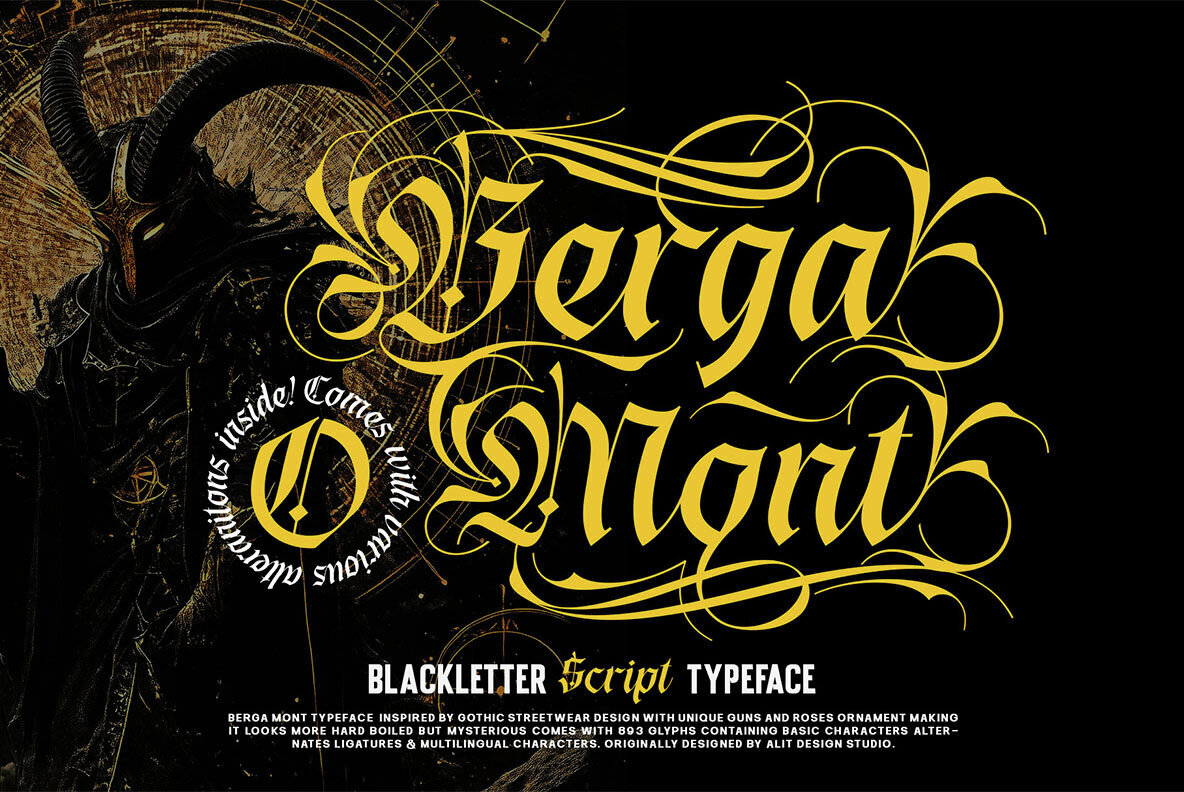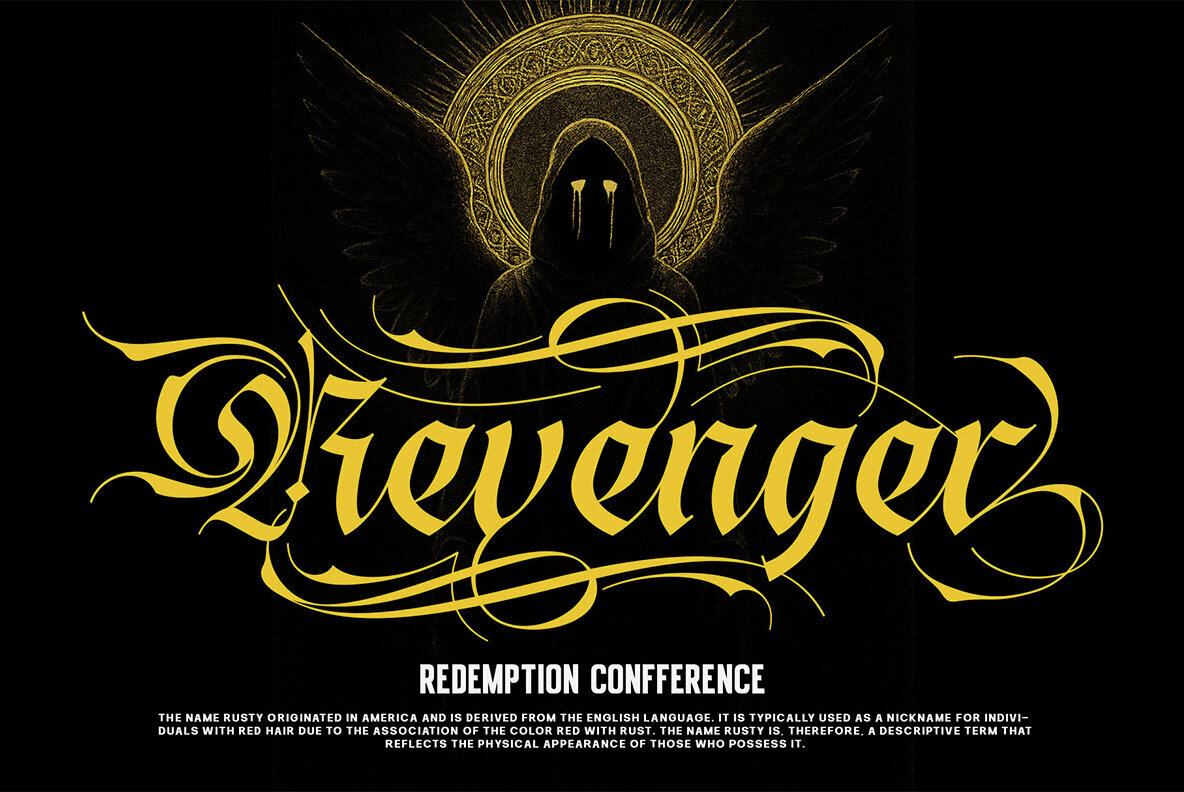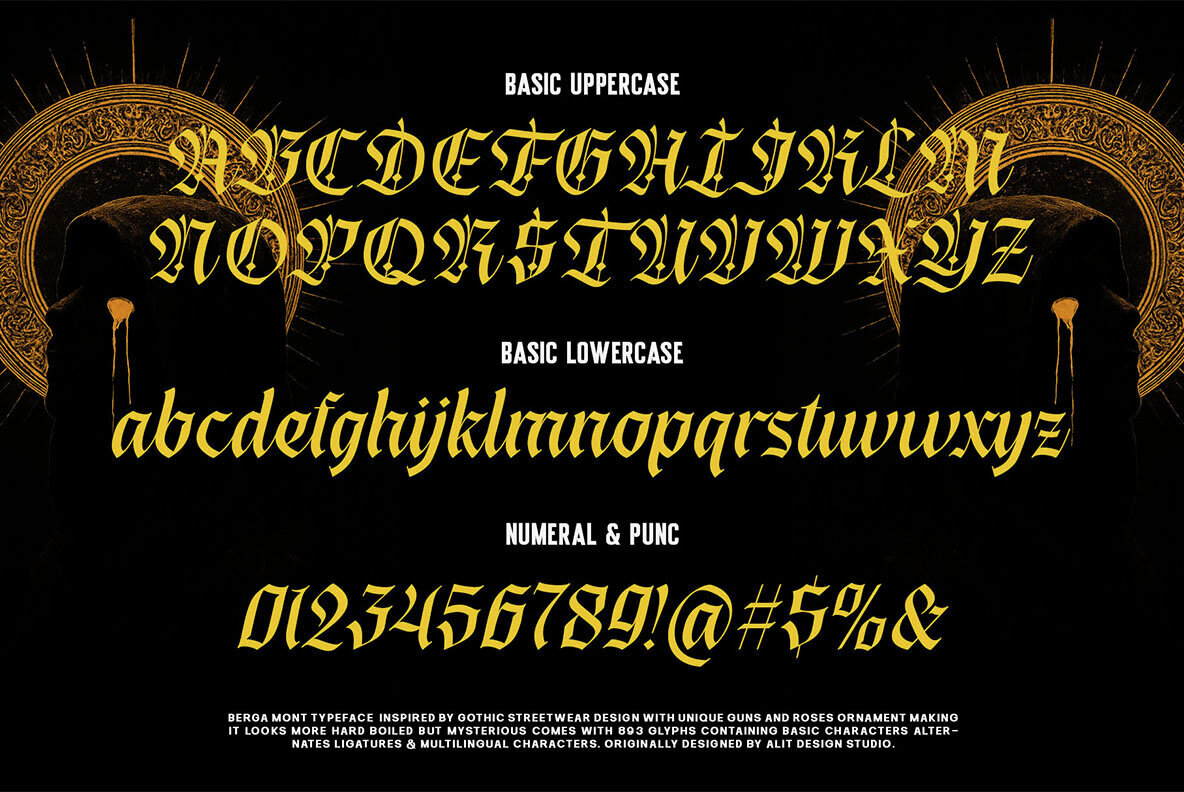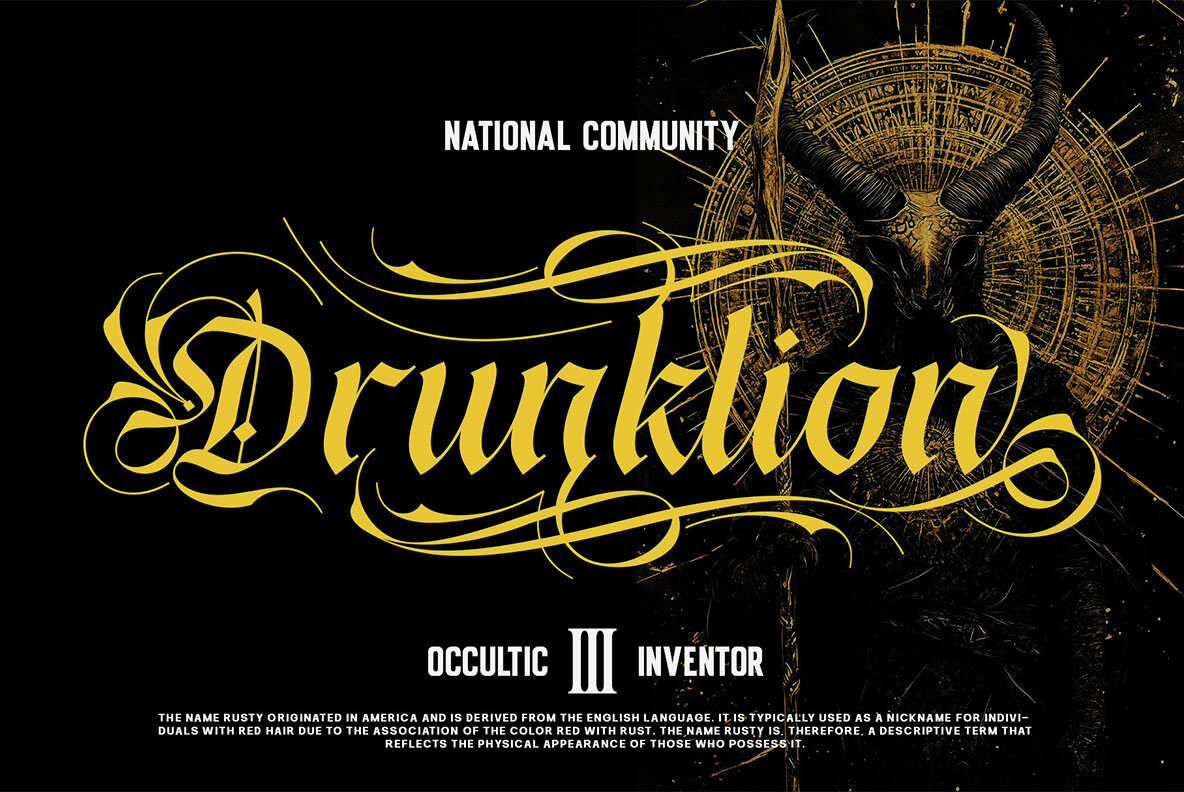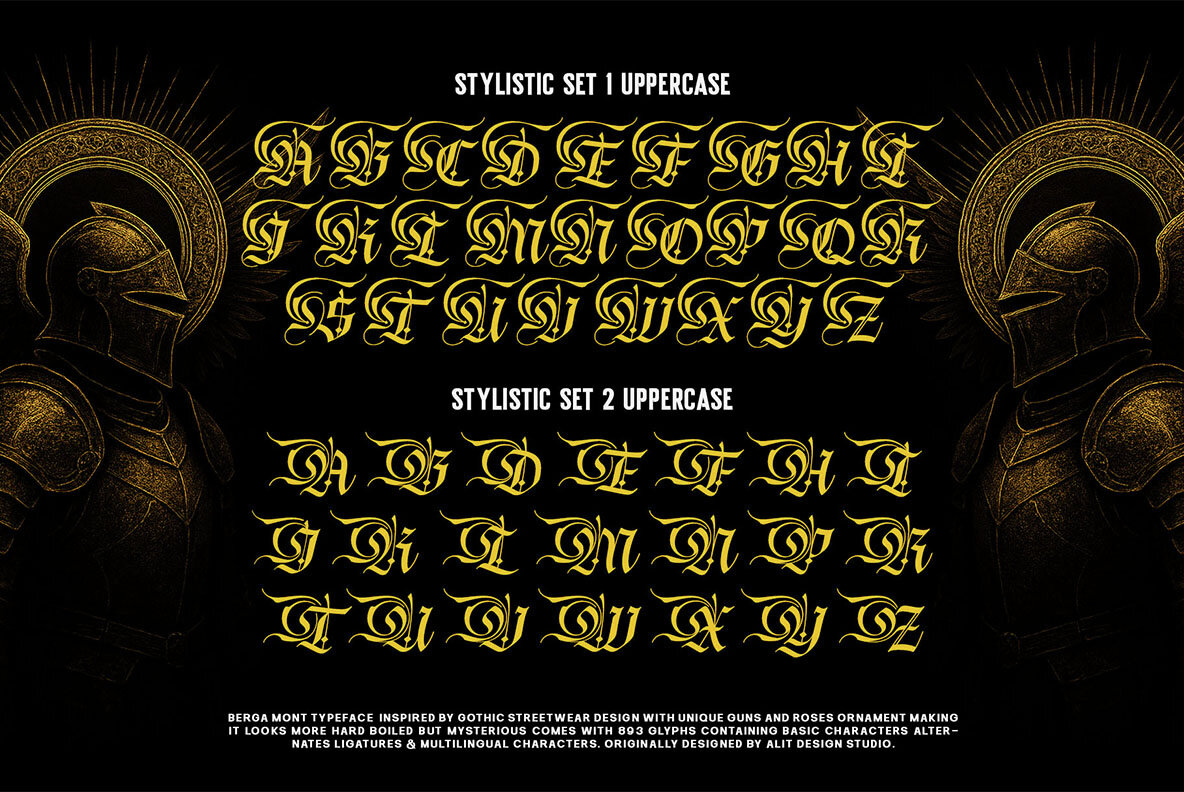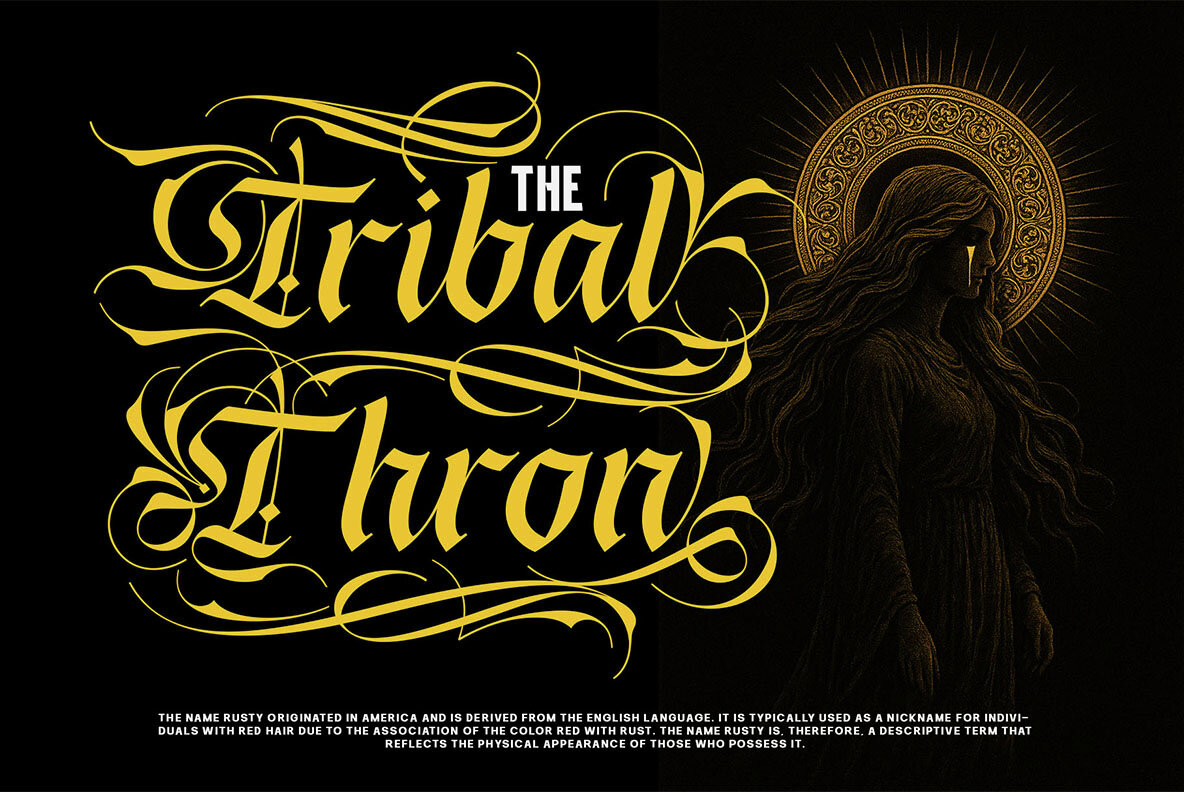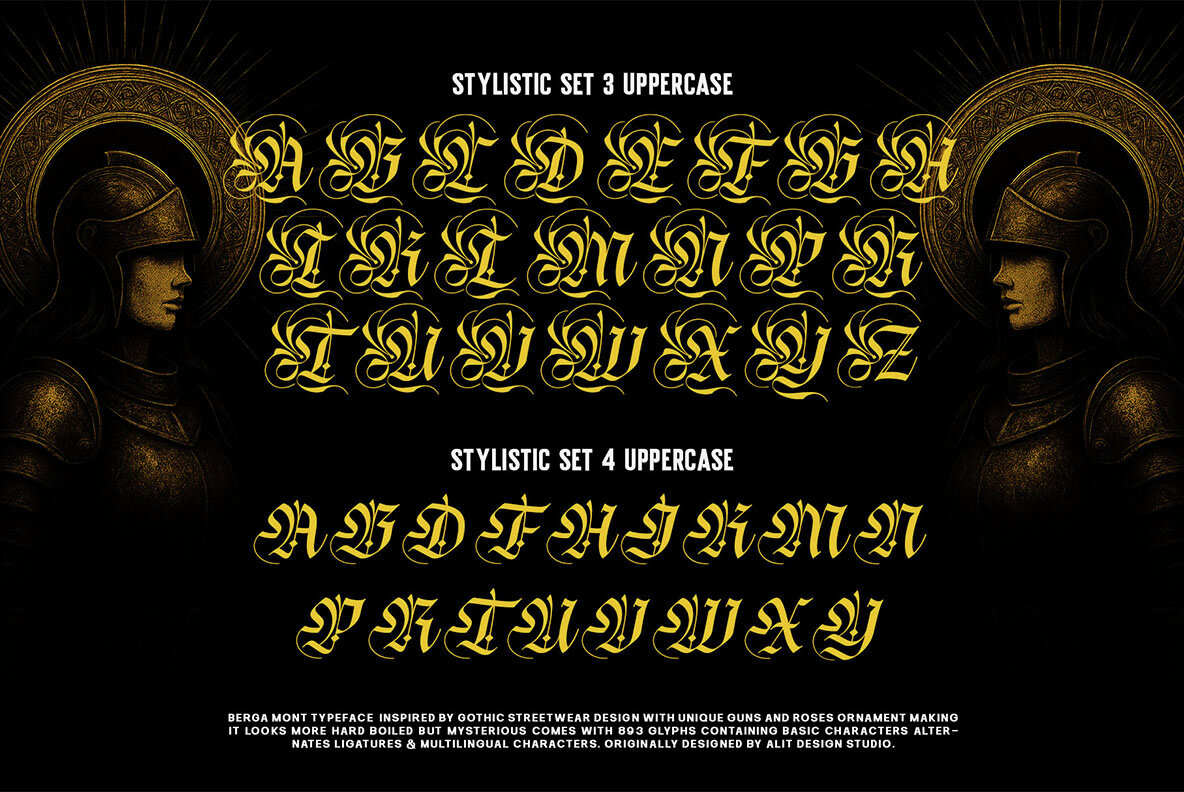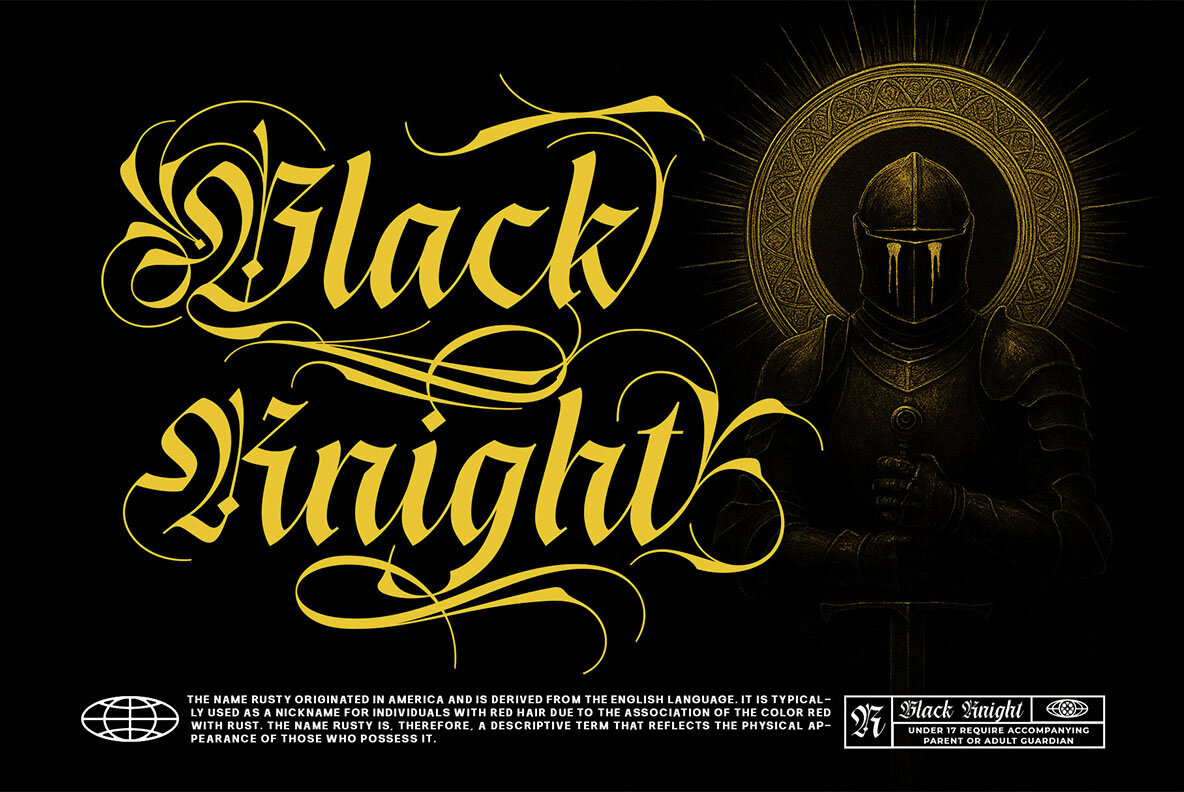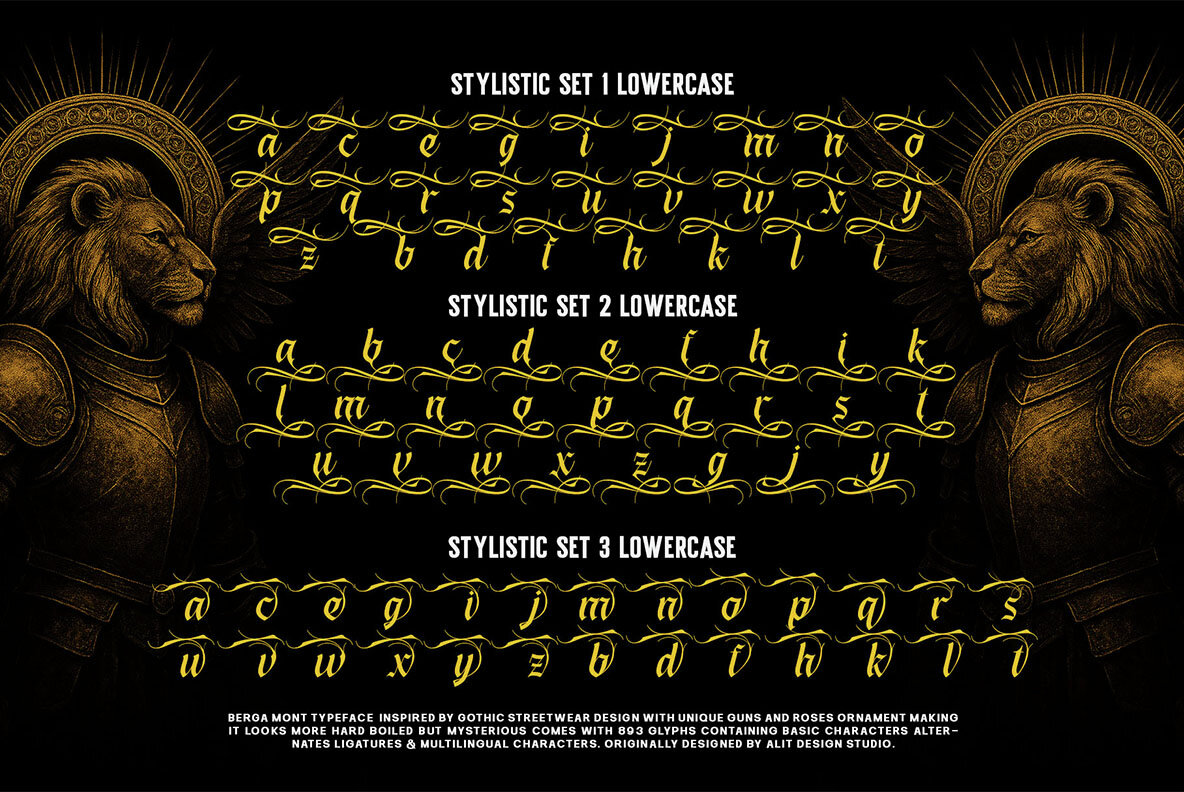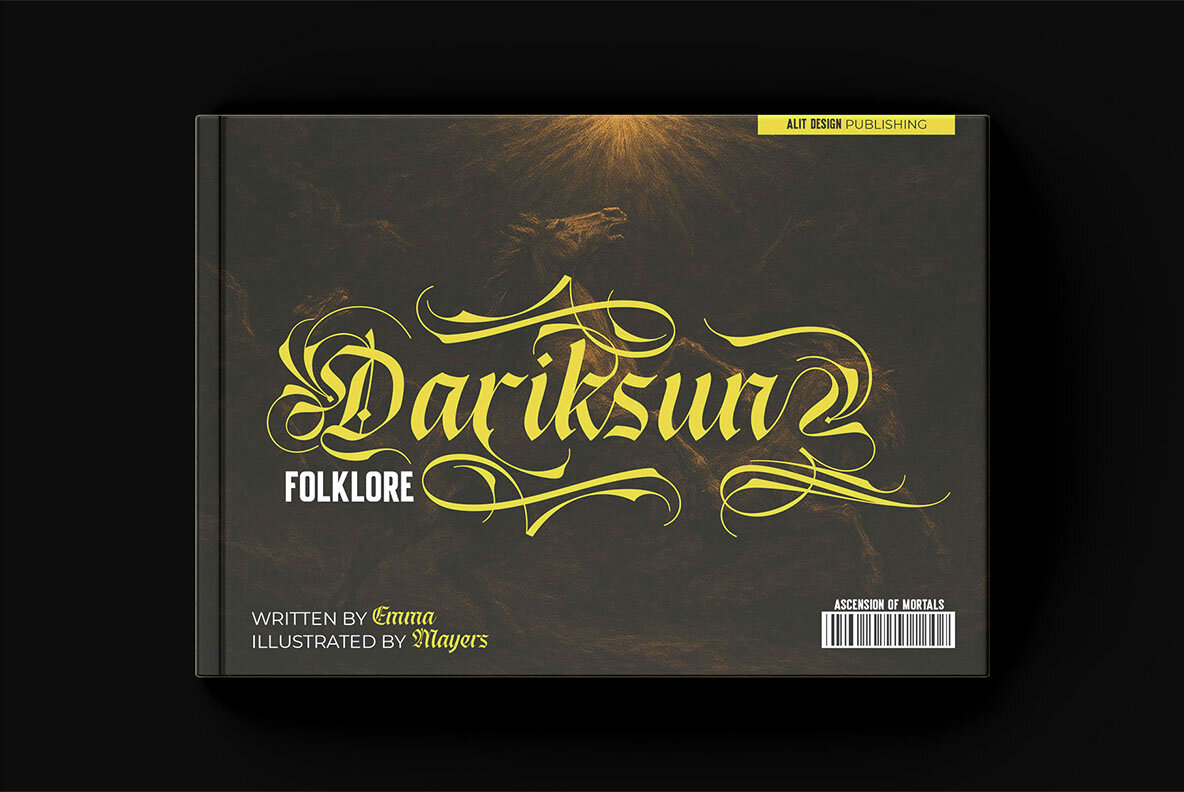
Berga Mont Font
Berga Mont Regular
Berga Mont captures the essence of gothic artistry with sharp, angular letterforms and ornate swashes inspired by modern streetwear and classic “guns and roses” motifs. Its intricate design offers both power and subtlety, delivering a bold presence for projects demanding intensity and mystery. Every detail from uppercase flourishes to elaborate lowercase alternates creates a dynamic rhythm, ideal for design work that seeks more than simplicity. Berga Mont stands out wherever bold, gothic-inspired typography is called for. Its vast glyph range and ornate options offer infinite potential for personalized, attention-grabbing design.Berga Mont Blackletter Typeface